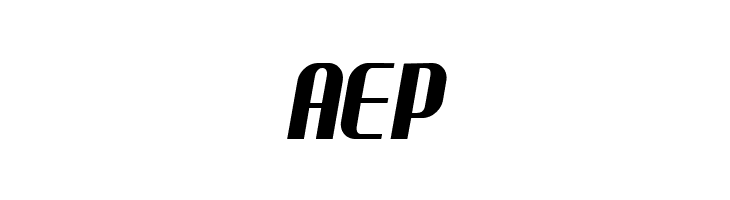
Yamato Class Outline Italic Font
- Font: Yamato Class Outline Italic
( Fonts by www.tepidmonkey.net )
A modern, italicized, and condensed font with a sleek and dynamic style.